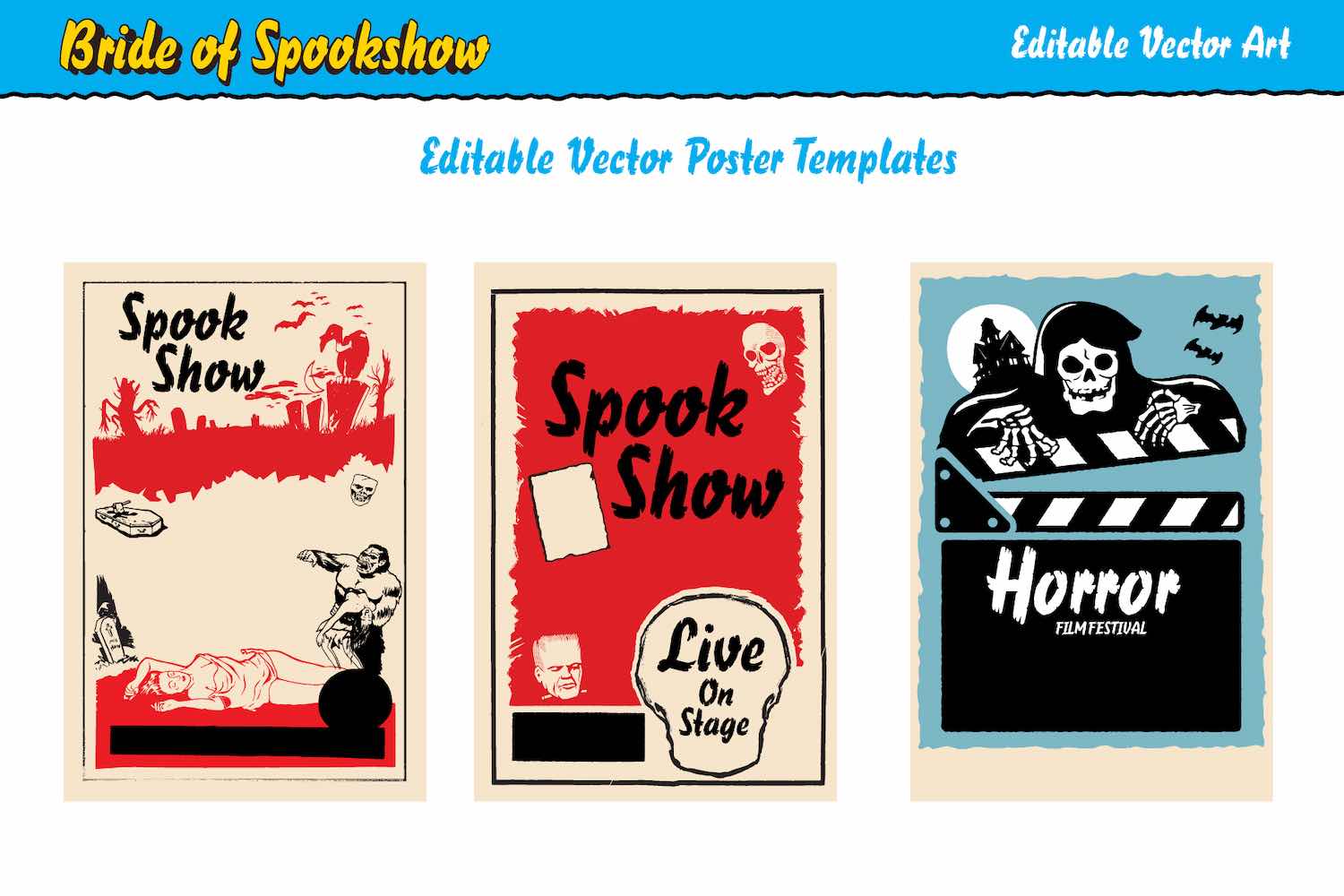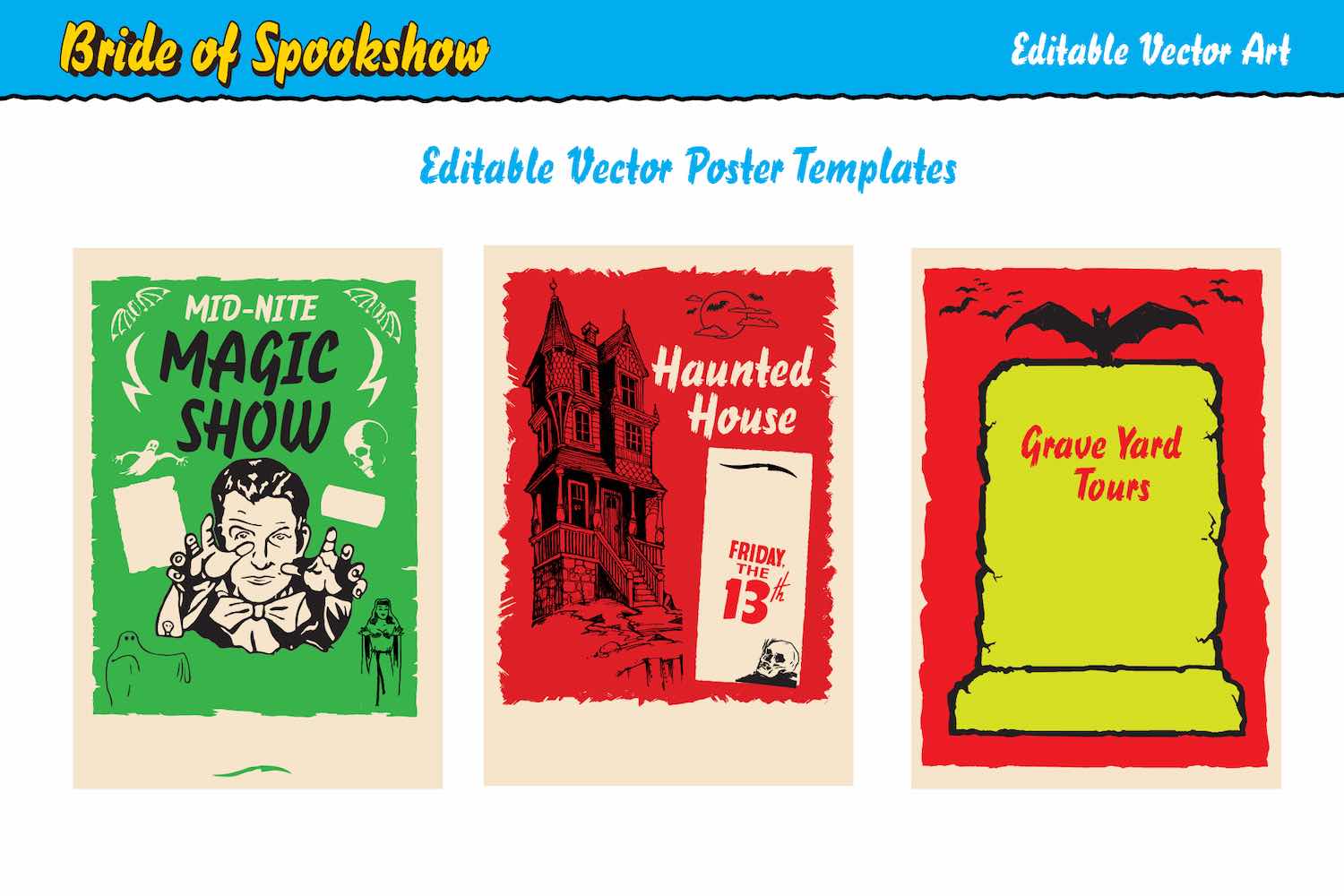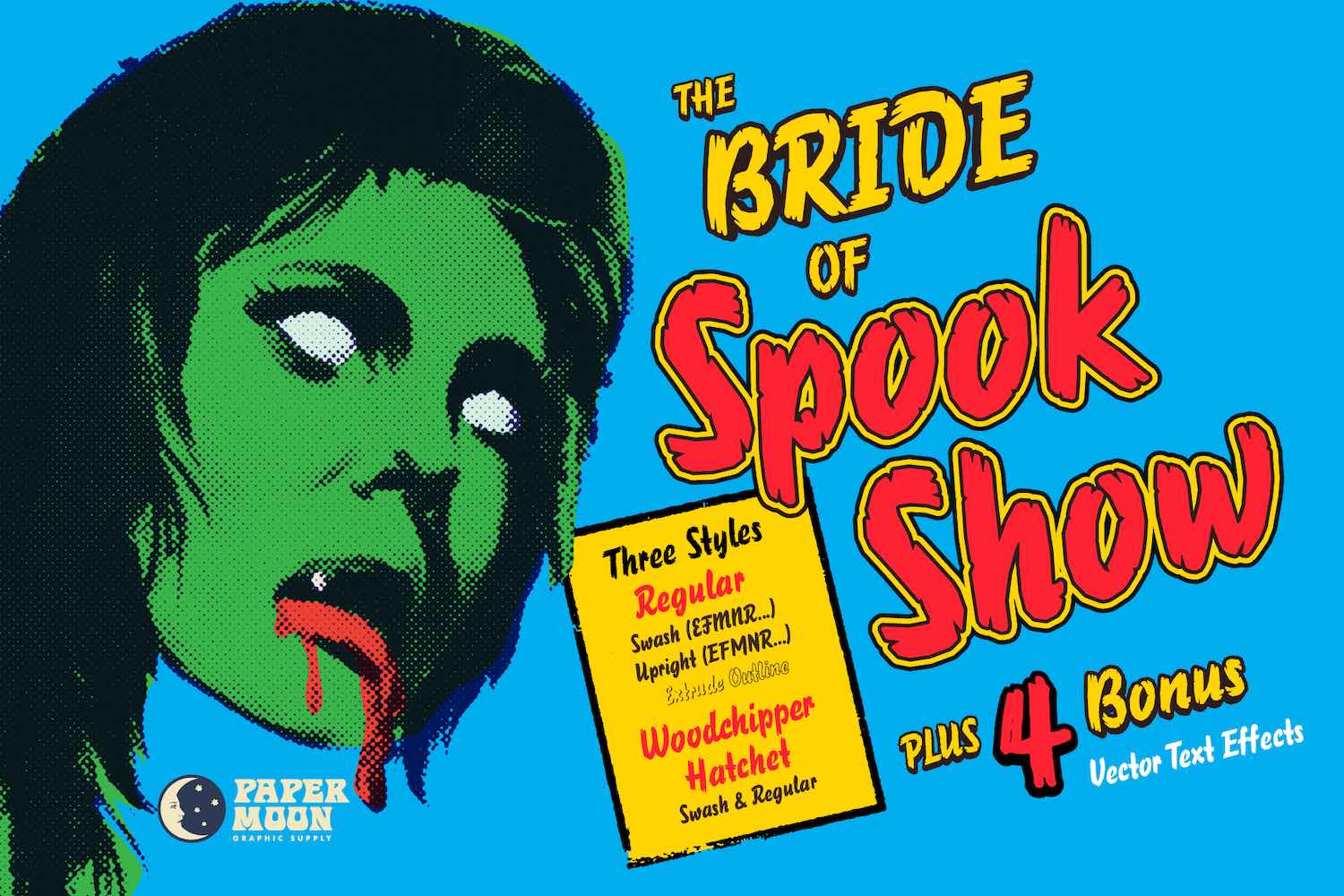
The Bride of Spook Show rises from the grave with a shriek of typographic terror! Inspired by live-hosted midnight monster flicks, this spine-tingling typeface is straight off the hand-painted horror posters that haunted theater walls from the 1950s to the ‘70s.
With a twisted array of swashes, woodcut textures, and 3D layering, this is your new go-to for designing scream-worthy posters, packaging, title cards, comics, or anything that needs a scream of retro camp and creature-feature drama.
- Two Font Families, Countless Combinations: Includes both Upright and Swash styles. Each with Regular, Outline, Extrude, Rough, Round, Sharp, Woodchipper, and Hatchet variations.
- 4 Vector Text Effects: Instantly apply dimensional color effects with editable vector art. Styled just like old-school screen-printed poster overlays.
- Authentic Lettering Vibe: Each character was crafted to feel hand-drawn and pulp-perfect, echoing the theatrical barkers and ghost hosts of vintage fright fests.
- Built for Layers: Use Outline and Extrude combos for perfect 3D stacking effects, whether you're designing in Illustrator or building layered type in Procreate.
The Bride of Spook Show is a monstrous mashup of style and vintage horror history — perfect for bold title treatments, poster parodies, Halloween merch, and any project crawling with character.